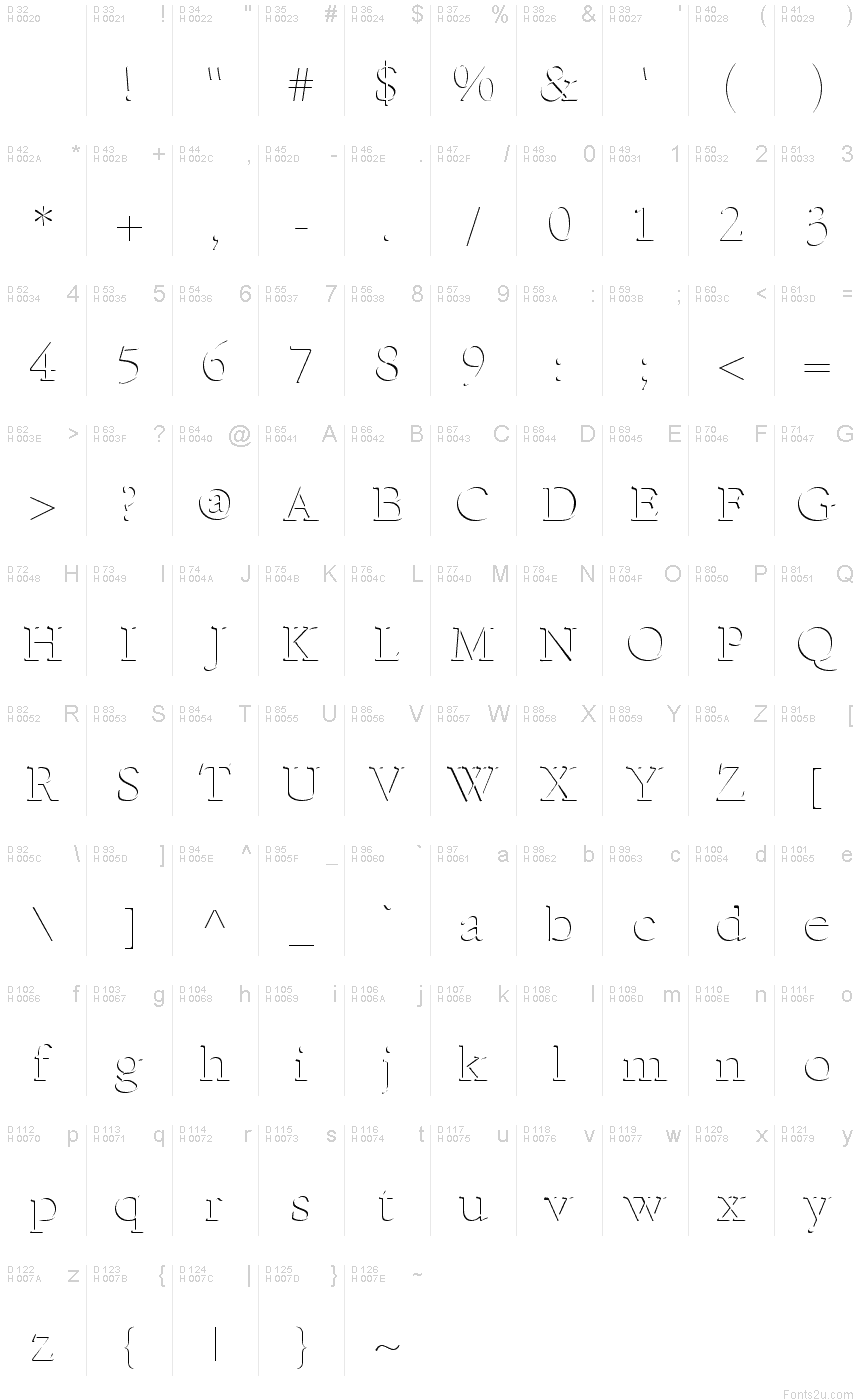
Emboss-Normal
Emboss font is a free 3D serif typeface that looks as if it’s been delicately pressed into the page. Fine hairline shadows trace each curve, giving the letters a subtle chiseled depth while keeping the overall texture light and elegant. The contrast between the crisp outer shape and the soft inner shading creates a refined, almost engraved feel that instantly draws the eye.
Using Emboss, headlines and wordmarks gain a tactile, high-end presence without feeling heavy or overdone. This free font shines on boutique branding, packaging, book covers, event invitations, posters, and editorial titles where you want quiet luxury rather than loud drama. For body copy, pair it with a simple sans-serif and let Emboss-Normal stay large and generously spaced so the embossed illusion really breathes.